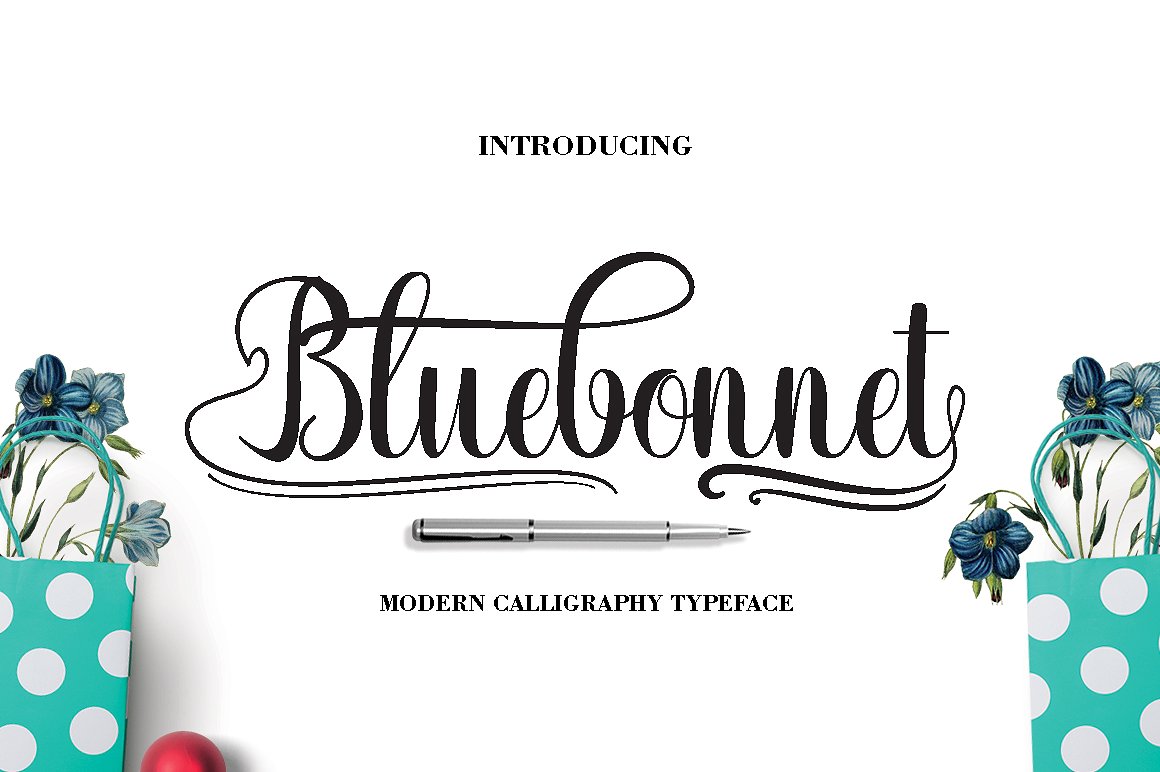
Bluebonnet Script Font
Bluebonnet Modern Calligraphy. This font was designed by handwriting, and it has a modern and unique forms of calligraphy, the writing style is very natural.
| Designer Name: | Danti |
| Classification: | Calligraphy Fonts, Script Fonts |